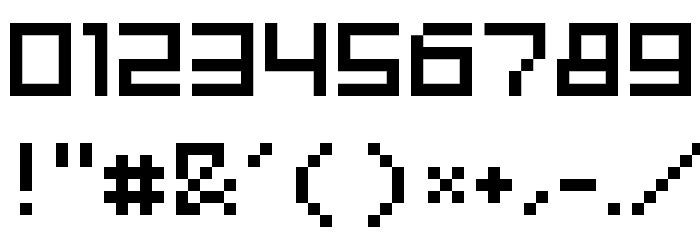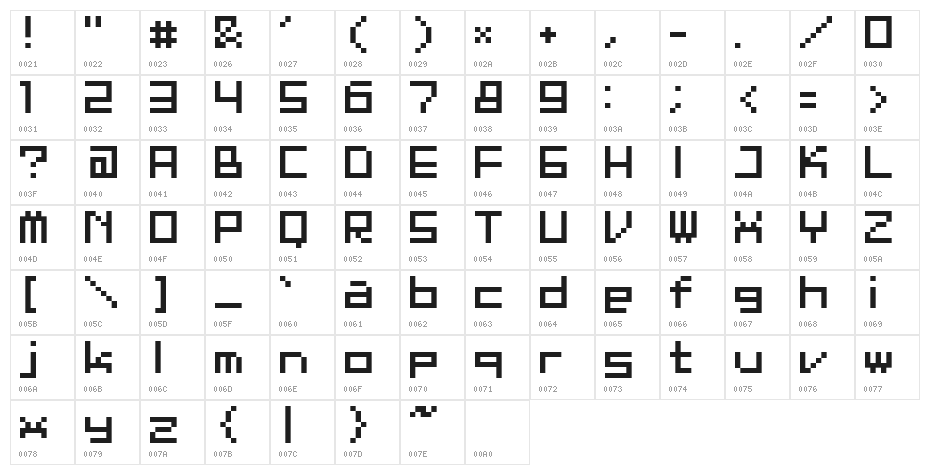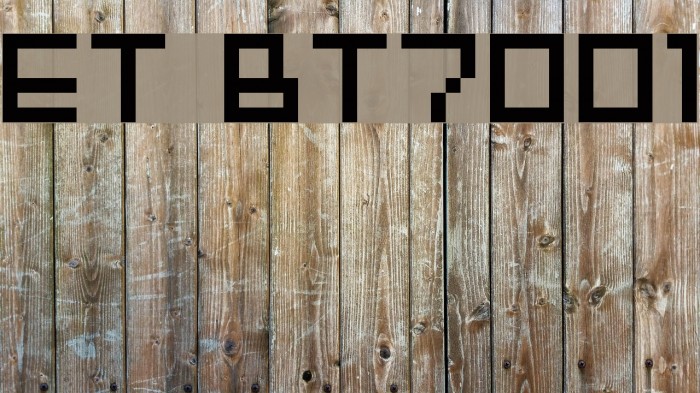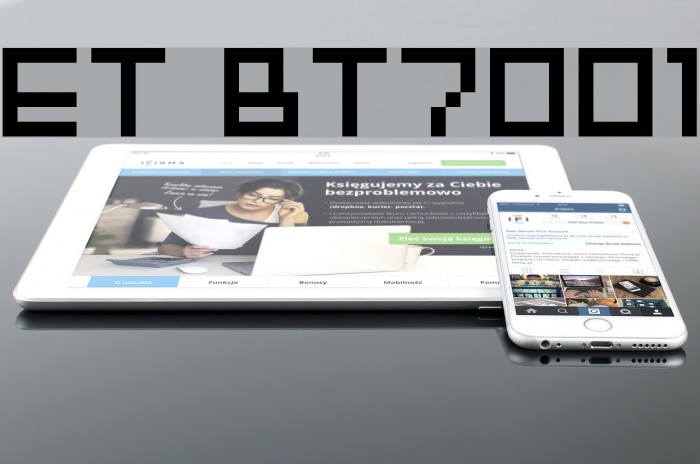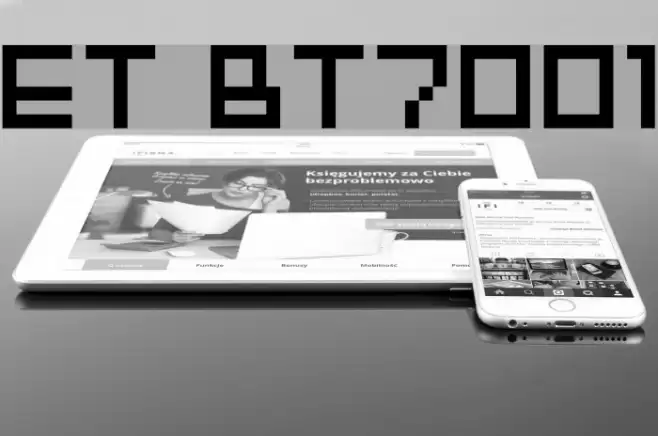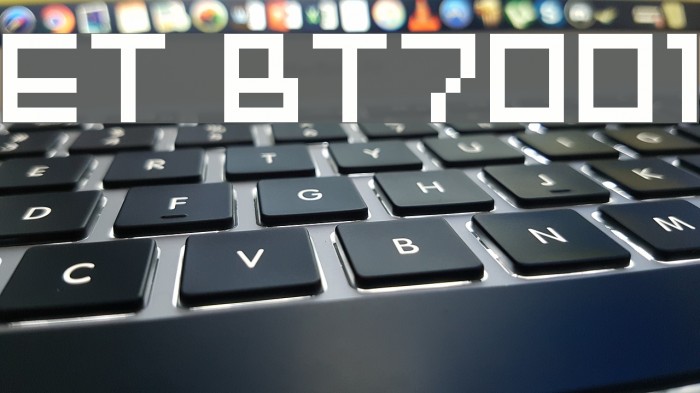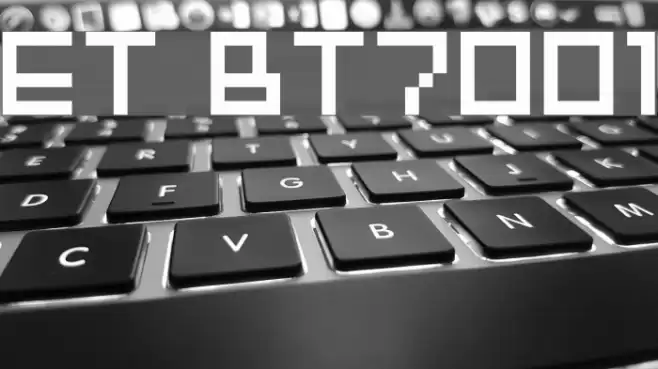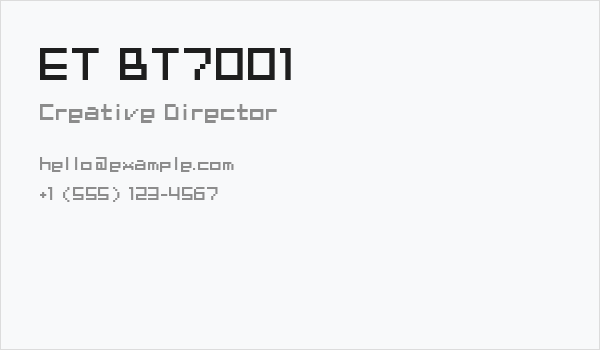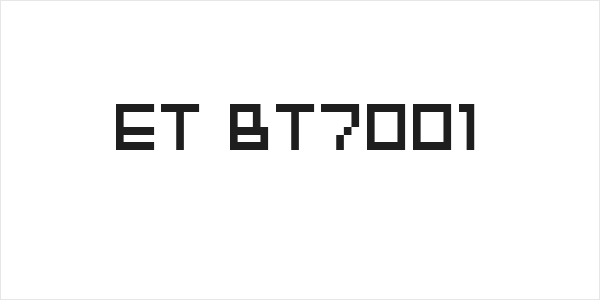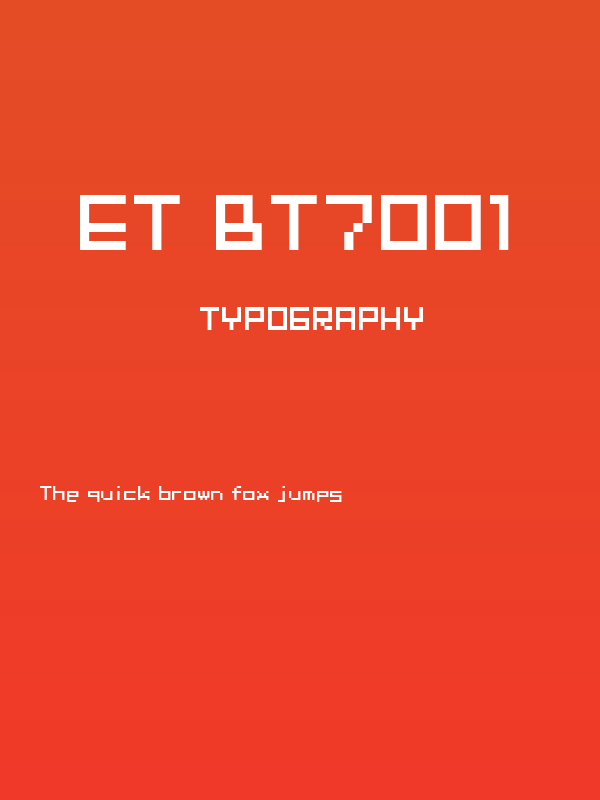
ET BT7001 Font
ET BT7001 Description
This font features a pixelated, blocky design reminiscent of early digital displays and video games. Each character is constructed with a uniform grid-like pattern, giving it a distinctly retro and technological feel. The uppercase and lowercase letters maintain a consistent height and width, contributing to a monospaced appearance. The numerals and special characters follow the same pixelated style, ensuring uniformity across all glyphs. This font's geometric and minimalist aesthetic makes it ideal for projects that aim to evoke nostalgia or a digital theme.
| Use Case | Logos, Headlines, Digital displays |
| Proposed Projects | Ideal for video game design, digital art projects, retro-themed posters, and any creative work that seeks to capture a vintage digital aesthetic. |